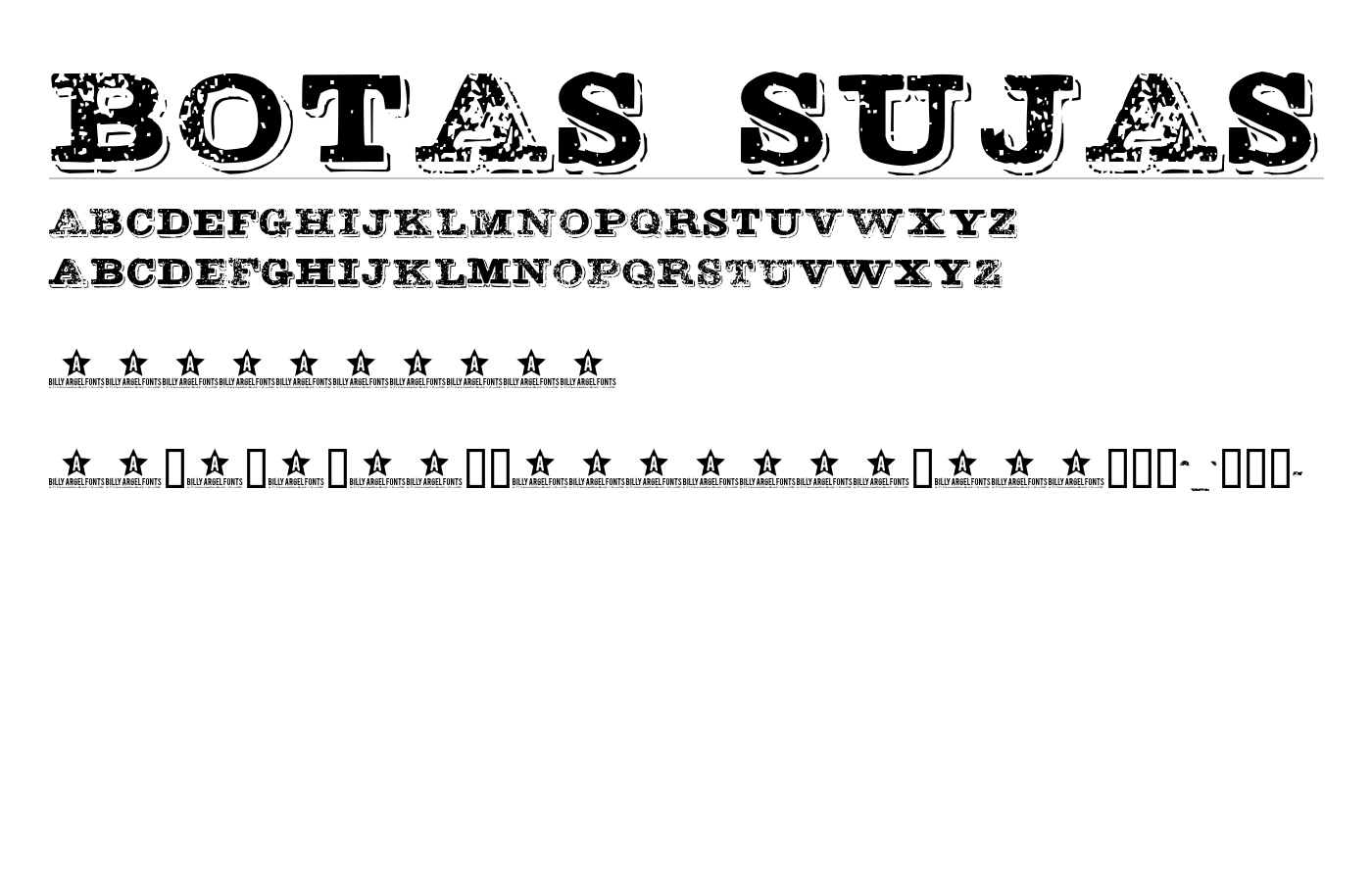
BOTAS SUJAS is a bold slab serif font with a gritty, distressed texture that gives it a rugged, vintage look. Its strong, blocky letters with rough edges convey a tough, industrial personality perfect for eye-catching headlines, posters, and branding that needs a raw, authentic feel. This font works well in designs that aim for a bold, rebellious vibe with a hint of retro charm.